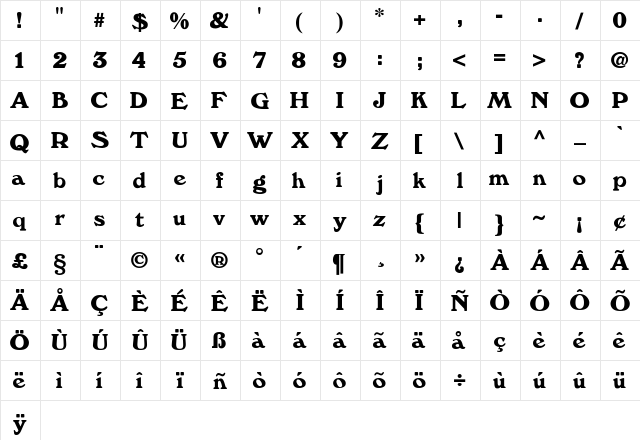
KesslerDemi Regular Font Preview
KesslerDemi Regular
KesslerDemi Regular Font Details
Design Context for KesslerDemi Typeface
KesslerDemi is a composed and adaptable typeface that performs quietly and consistently across a wide range of design contexts.